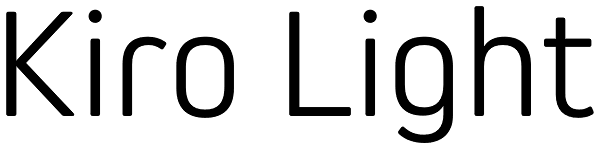
Kiro
Kiro is a minimal, simple condensed sans-serif family designed by Ryoichi Tsunekawa and the whole family consists of 12 style: six weights from Thin to ExtraBold and their matching Italics. The range of styles provides flexibility for title...